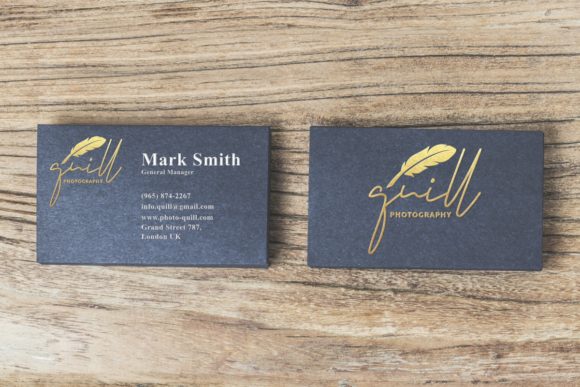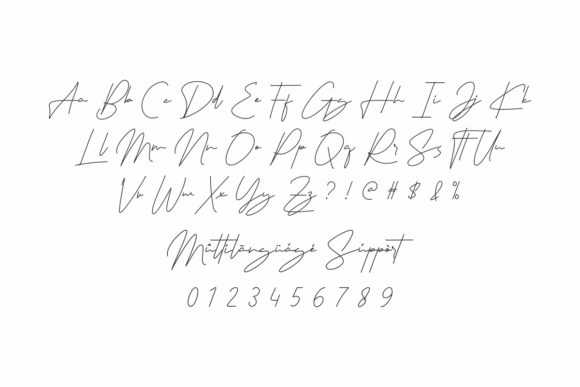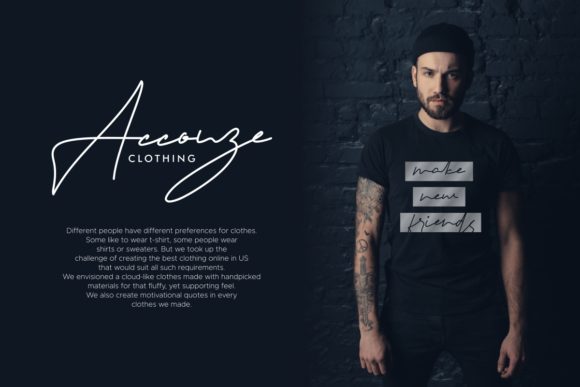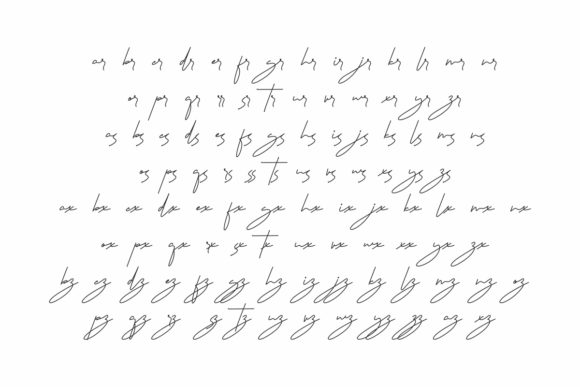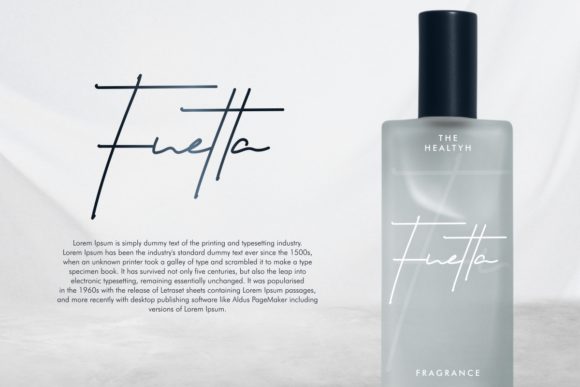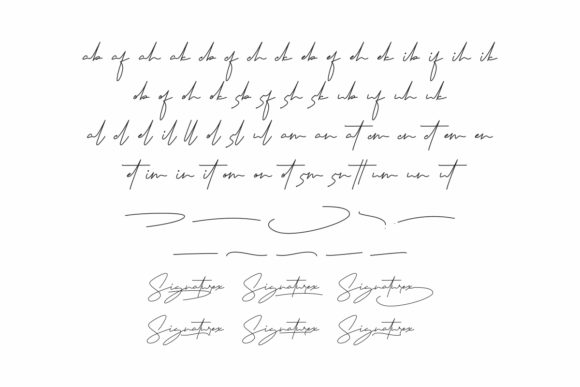
Introduction to Signaturex Font
As a designer, there’s nothing quite like the thrill of bringing a creative project to life. You’ve poured your heart and soul into the concept, carefully crafting every detail to make it shine. But sometimes, no matter how hard you try, something’s missing – that special something that takes your design from good to great. That’s where the Signaturex Font comes in – a beautiful and stylish handwritten font that adds a touch of elegance to any design.
With its well-balanced characters and versatility, the Signaturex Font is the perfect design resource for any creative project. Whether you’re working on a logo, a brochure, or a social media graphic, this high-quality font is sure to elevate your design and make it stand out from the crowd. And the best part? It’s available for free download, making it an accessible and valuable resource for designers of all levels.
- High-quality design resource ideal for creative projects, offering a unique and professional touch.
- Transparent background, allowing for seamless integration into various design elements and backgrounds.
- Unique characteristics and subtle nuances make it an excellent choice for designers seeking a distinctive look.
- Perfect for use in logos, branding materials, and other creative projects where a high-end, professional feel is required.
Honest Review: Signaturex Font
As a designer, I’m always on the lookout for high-quality design resources to elevate my creative projects. Recently, I stumbled upon the Signaturex Font, and I’m excited to share my honest review with you.
First off, the Signaturex Font is a stunning addition to any design library. Its elegant script style and modern flair make it perfect for creating beautiful logos, headings, and titles. The font is available for free download, which is a huge plus in my book.
Here are some things that work well with the Signaturex Font:
- ✨ Elegant script style that adds a touch of sophistication to any design
- ✨ Modern flair that makes it perfect for contemporary and minimalist designs
- ✨ Transparent background, making it easy to use with any color or image
- ⚠️ Limited language support, which may be a concern for designers who need to create multilingual content
- ⚠️ Not suitable for small text sizes, as the font may become too thin and difficult to read
Overall, I’m impressed with the Signaturex Font. Its high quality and unique style make it a valuable addition to any design library. While it may have a few limitations, it’s definitely worth checking out for your next creative project.
Getting the Most Out of Signaturex Font
For the best results, use Signaturex Font in conjunction with other design elements, such as graphics or images, to create a visually appealing design. Experiment with different font sizes and styles to add depth and interest to your project.
Signaturex Font is ideal for various creative projects, including social media graphics, presentations, and documents. Its high-quality design and transparent background make it perfect for use in a variety of design applications.